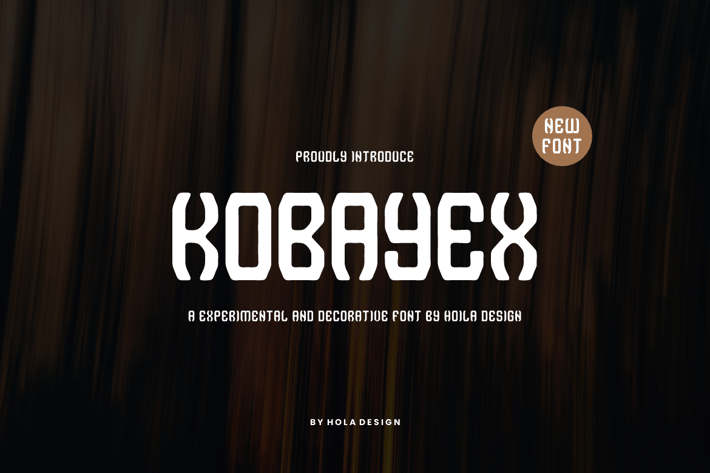
Kobayex - Decorative Font
Kobayex - Decorative Font Font is unique . Ready to use for your design like labeling, movie sceen, poster, movie title, gigs, album covers, logos, and much more.